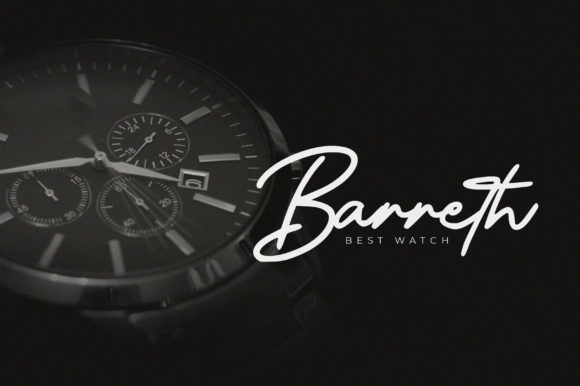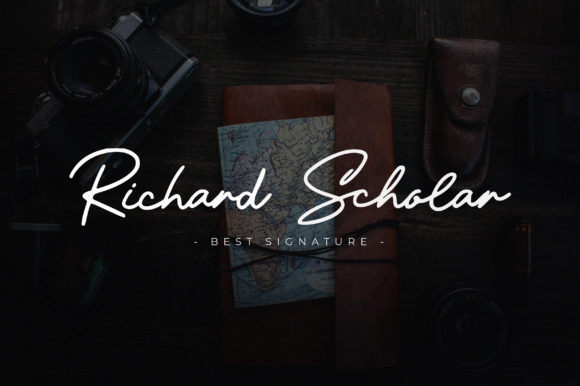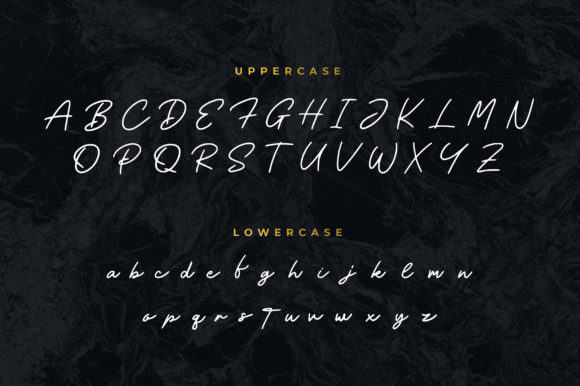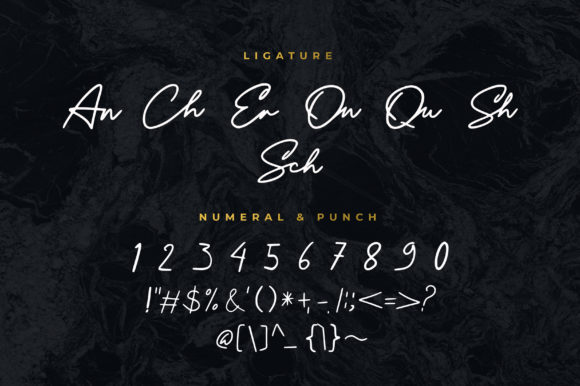
Introducing Andalimant Font: The Epitome of Elegance and Sophistication
In the realm of typography, few fonts manage to convey the essence of luxury and refinement as effectively as Andalimant. This exquisite script font is a masterclass in elegance, designed to elevate any project it touches. With its flowing lines, stylish alternates, and intricate ligatures, Andalimant is poised to become the go-to choice for designers and crafters seeking to infuse their work with a touch of sophistication.
The Design Philosophy Behind Andalimant
Andalimant’s design is rooted in the tradition of classic script typography, yet it boasts a modern flair that sets it apart from its contemporaries. Each letterform is meticulously crafted to ensure a seamless flow, creating a sense of continuity that is both visually appealing and highly readable. The font’s creator aimed to produce a typeface that not only exudes luxury but also offers versatility, making it suitable for a wide range of applications, from high-end branding and advertising to elegant stationery and digital media.
Key Features of Andalimant Font
- Flowing Lines and Refined Aesthetics: Andalimant’s most striking feature is its fluid, connected script style, which gives it an undeniably luxurious feel. The refined lines and curves are designed to convey elegance and poise, making it perfect for projects where making a sophisticated statement is paramount.
- Stylish Alternates and Ligatures: Understanding the need for versatility in typography, Andalimant comes equipped with a range of stylish alternates and ligatures. These features allow designers to add nuance and personality to their work, preventing the repetition that can make text appear monotonous. Whether it’s adding a touch of whimsy or maintaining a consistent tone of elegance, Andalimant’s alternates and ligatures provide the tools necessary to achieve the desired effect.
- High Readability: Despite its decorative nature, Andalimant does not compromise on readability. The font’s clear and flowing design ensures that it remains legible even at smaller sizes, making it an excellent choice for body text in addition to headlines and titles.
Applications of Andalimant Font
Andalimant’s versatility is one of its most compelling attributes, making it suitable for a myriad of design projects. Some of the areas where Andalimant truly shines include:
- Branding and Logotypes: For businesses aiming to project an image of luxury and sophistication, Andalimant offers a typographic solution that is both distinctive and memorable.
- Wedding and Event Stationery: The font’s elegant appearance makes it an ideal choice for wedding invitations, event programs, and other ceremonial materials where a touch of class is required.
- Packaging Design: For high-end products, Andalimant can add a luxurious feel to packaging, helping to elevate the perceived value of the product.
- Digital Media: In the realm of digital content, Andalimant can be used to create engaging and stylish blog posts, social media graphics, and website headers that capture the audience’s attention.
| Author | klakonstudio |
Andalimant is more than just a font; it’s a design statement that speaks of elegance, sophistication, and refinement. Its flowing lines, stylish alternates, and ligatures make it an invaluable tool for designers and crafters looking to elevate their projects. Whether you’re working on a luxury brand, a wedding invitation, or a digital platform, Andalimant offers the perfect blend of style and readability, ensuring that your work stands out with grace and poise. Embrace the beauty of Andalimant and discover a new level of typographic excellence.